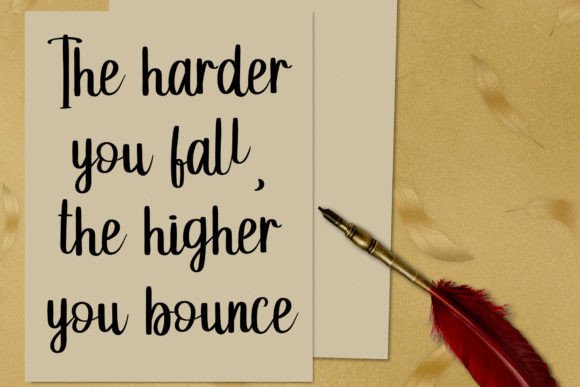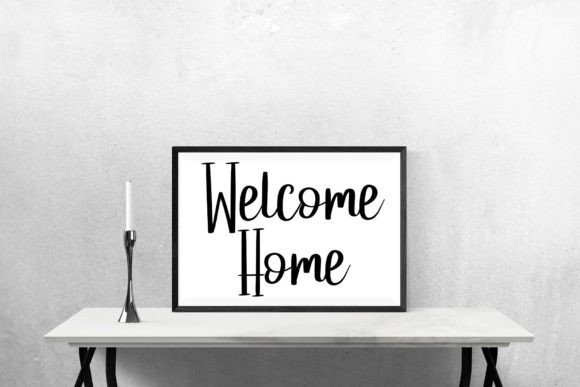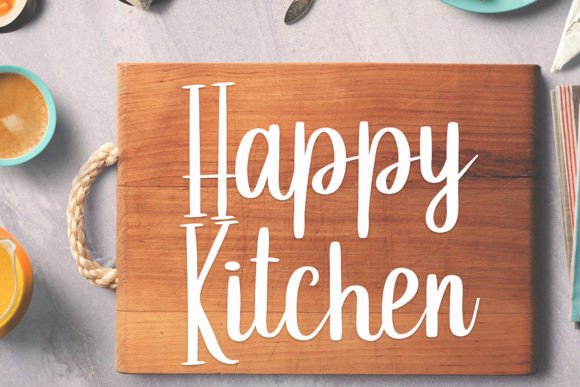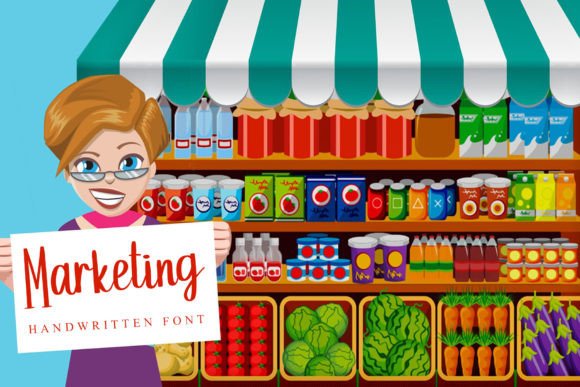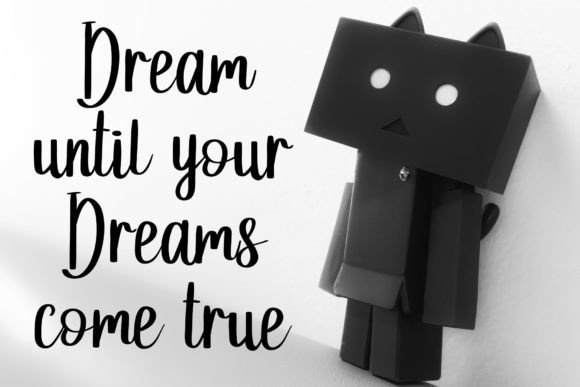
The Designer’s Delight: Unleashing the Beauty of Butterfly Font
I’ll never forget the time I was working on a wedding invitation project, and my client asked for a font that was ” elegant, yet playful, and definitely Instagram-worthy.” I scoured the internet, tried out a dozen fonts, but nothing seemed quite right. That was until I stumbled upon Butterfly Font. 💕
With its unique, handwritten nuance and sophisticated vibe, Butterfly Font was the perfect fit for my project. And I’m not the only one who thinks so! Designers, crafters, and creative hobbyists are raving about this one-of-a-kind typeface. So, let’s dive in and explore what makes Butterfly Font so special.
A Personal Review: The Good, the Great, and the Quirks
- ✨ Unique, artistic handwriting style that adds a touch of elegance to any design
- ✅ Irregular baseline that imitates the natural flow of handwriting
- 💫 PUA encoding for easy access to all glyphs and swashes
- 🎨 Versatile and perfect for a variety of design projects, from wedding invites to billboards
- ⚠️ Some users may find the font a bit tricky to pair with other typefaces
- 🤔 Limited availability of language support (but great for English-based designs)
Similar Fonts or Alternatives: A Quick Guide
If you love Butterfly Font, you might also enjoy:
- Kaitlynn: A whimsical, handwritten font with a similar feel to Butterfly
- Lily: A elegant, script font with a more formal tone
- Carolyna Pro: A sophisticated, handwritten font with a similar irregular baseline
- Alex Brush: A beautiful, artistic script font with a more rustic feel
Butterfly Font was created with the goal of capturing the essence of natural handwriting. The designer, inspired by the delicate movements of a butterfly, aimed to create a font that was both elegant and playful. With its unique blend of artistic flair and sophistication, Butterfly Font is sure to inspire your next design project.
Q: Is Butterfly Font suitable for body text?
A: While Butterfly Font is stunning, it’s best suited for display text or headings. Its unique style may not be ideal for large blocks of body text.
Butterfly Font is a game-changer for designers, crafters, and creative hobbyists. With its unique blend of elegance and playfulness, it’s the perfect addition to your design arsenal. So, go ahead and unleash your creativity with Butterfly Font! 🌟